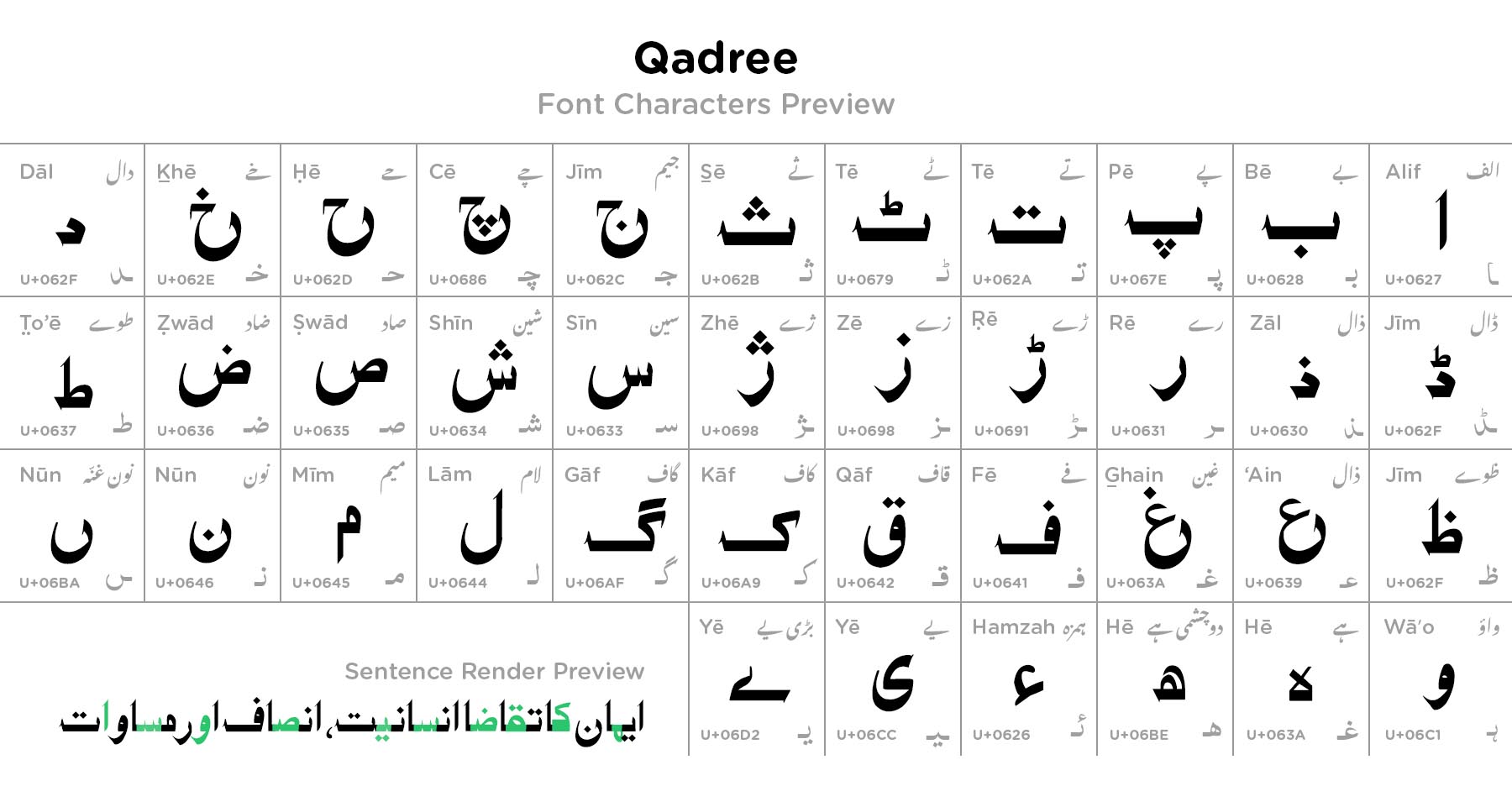
Qadree Urdu Font is a TrueType open-source Naskh-style Urdu typeface. It’s a multipurpose typeface that may be used for ordinary writing, casual conversation, and instructional products. It was designed by a Pakistani calligrapher Muhammad Ishtiaq Ali Attari from Faisalabad and released under the trademark Attari Qadri, in 2010. The font has a broad character set having 444 characters and 497 glyphs. Moreover, it is compatible with 11 Unicode blocks including Basic Latin Latin-1 Supplement, Spacing Modifier Letters, Arabic, General Punctuation, Greek, and Coptic, among others. It is, however, only available in regular font size. Qadree is also digital media-friendly, making it a great choice for websites, social media graphics, and digital presentations. Its clean and regular linear strokes keep text legible even in small font sizes or on low-resolution devices. The font’s simple style makes it ideal for composing letters, emails, and notes.